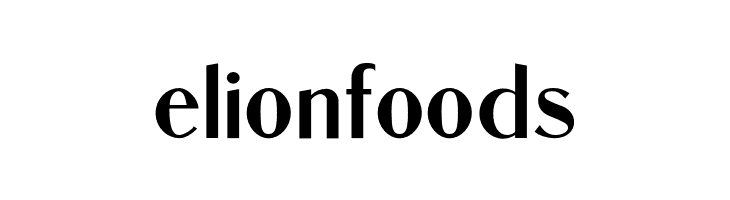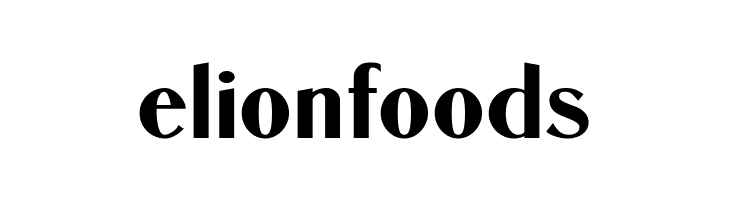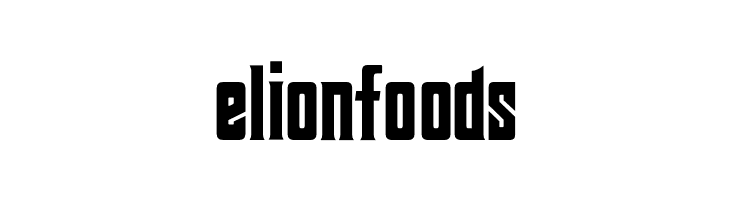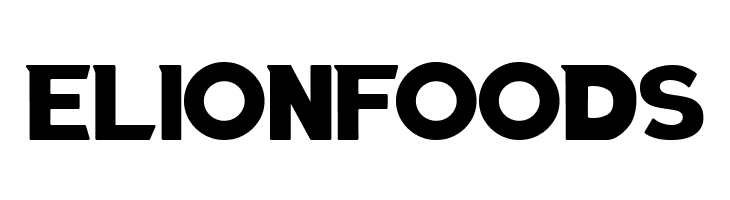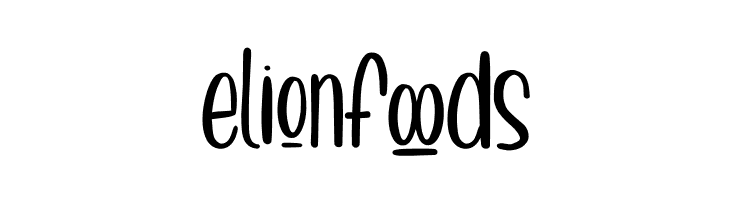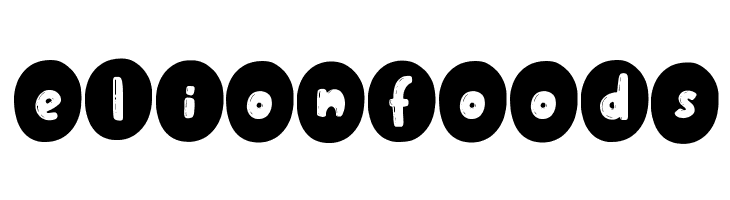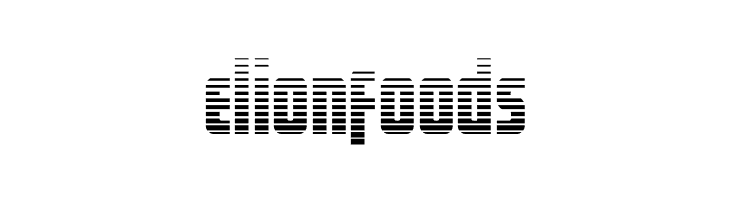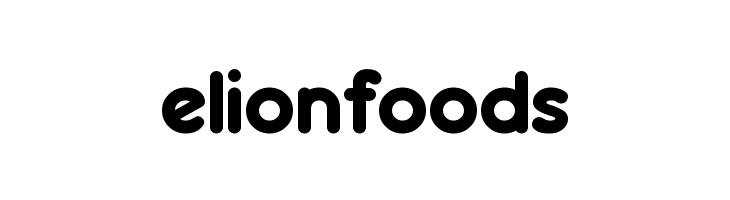
A modern serif font with a semi-bold weight, ideal for impactful and versatile design projects.
A bold, striking font with strong, thick strokes and slightly condensed letterforms.
A bold, geometric font with a vintage yet modern appeal.
A bold, star-adorned font with a modern and decorative style.
A high-contrast serif font with elegant, sharp serifs and a classic style.
A playful, handwritten-style font with a whimsical and friendly appearance.
A playful, bold font with characters in circular shapes, ideal for fun designs.
A bold, futuristic font with a gradient effect created by horizontal lines.
A playful, rounded font with bold, smooth curves and even spacing.
A bold, playful font with rounded edges and a cohesive, friendly design.